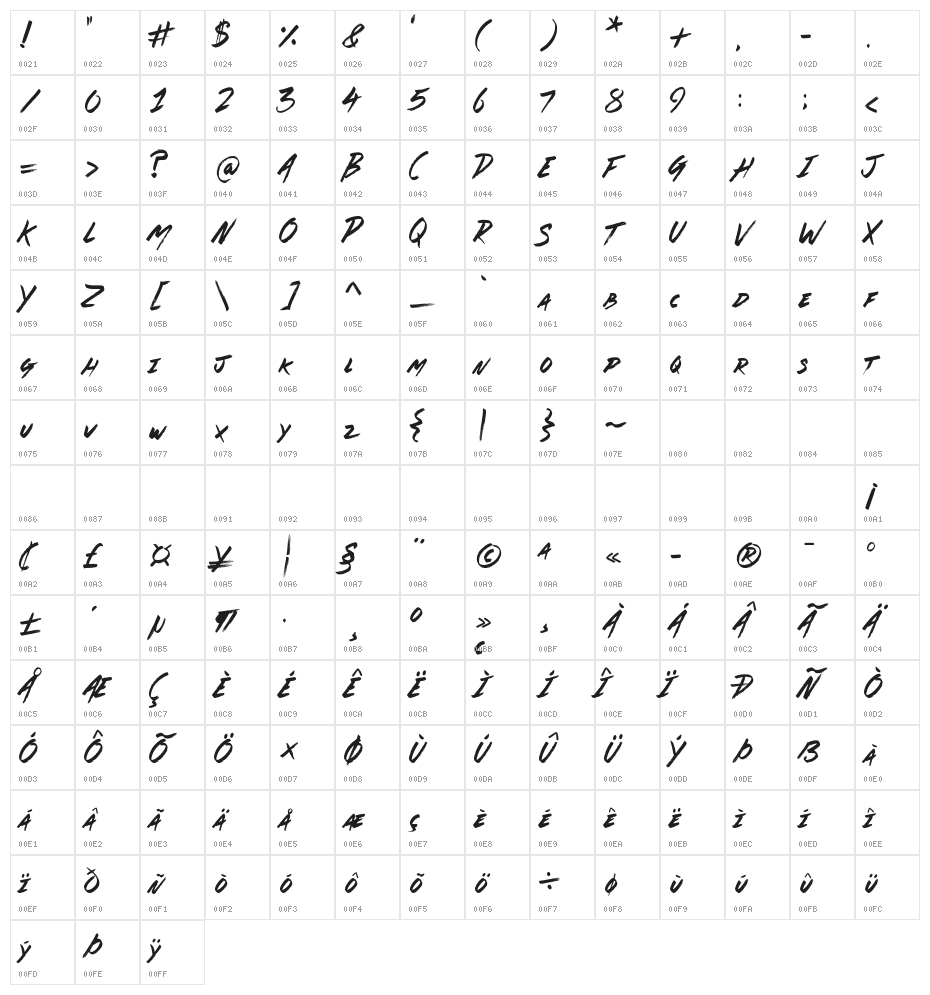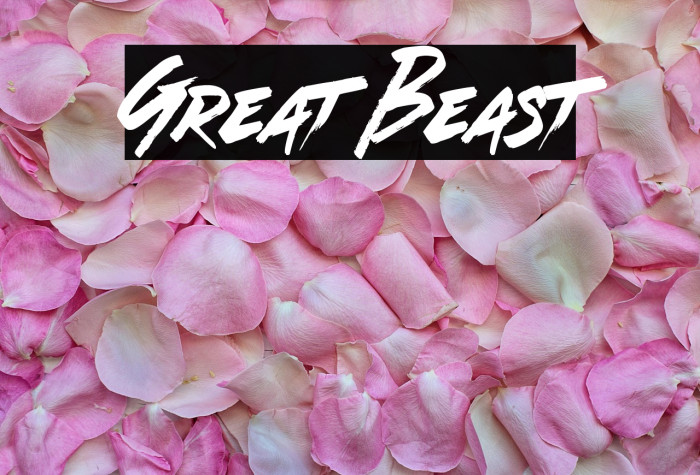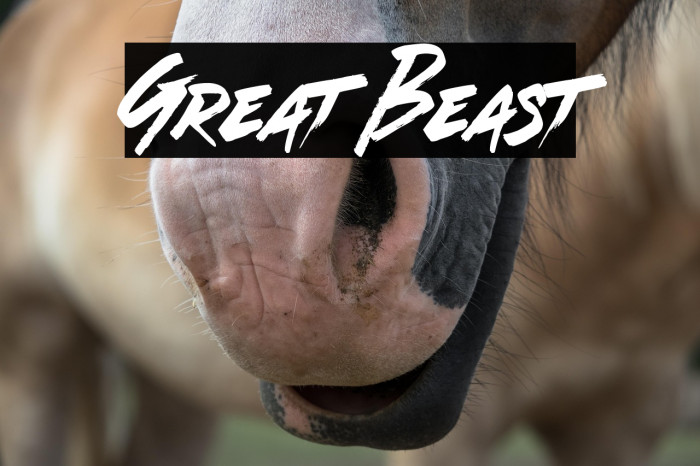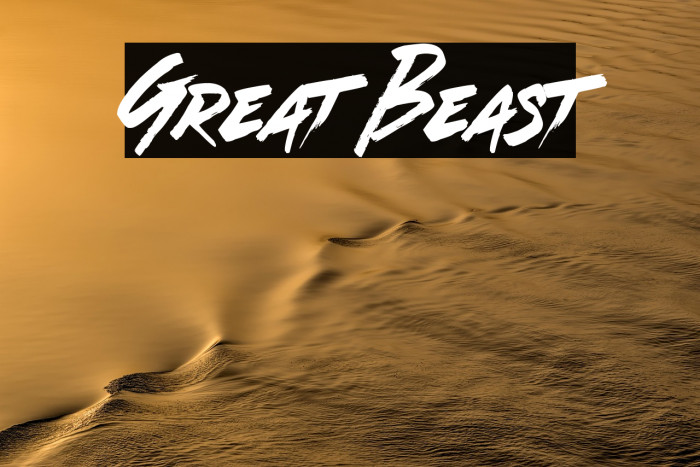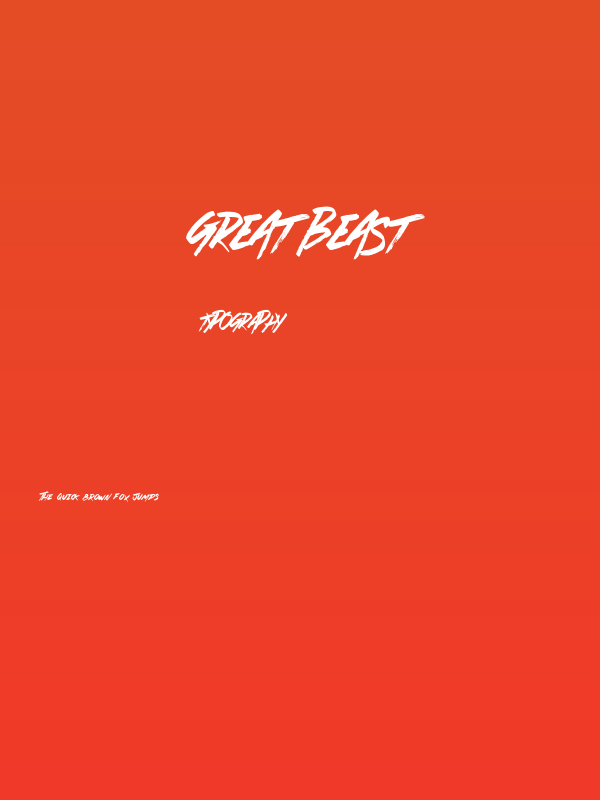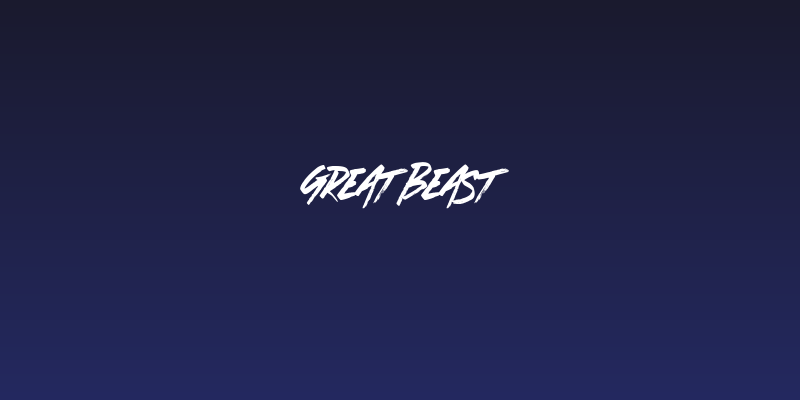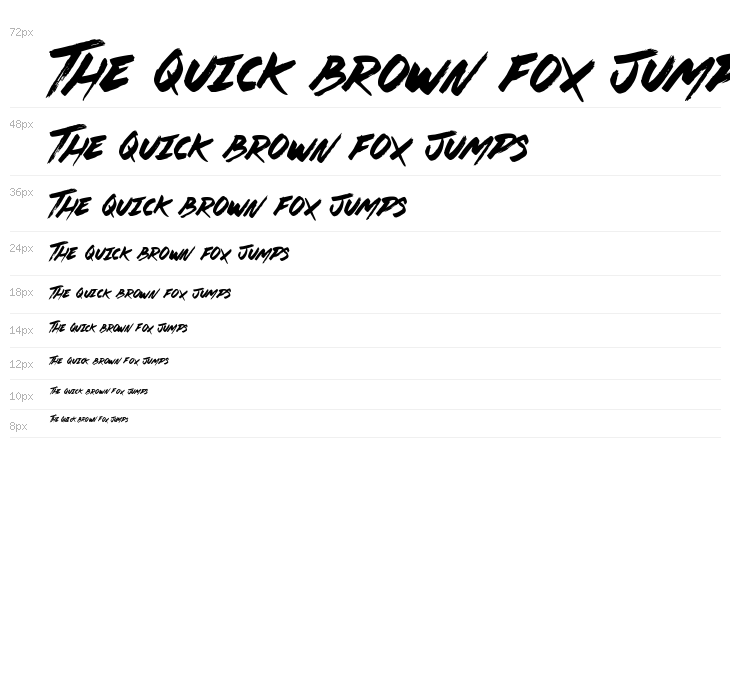
Great Beast Font
Great Beast Description
This font exudes a bold and dynamic energy, characterized by its brush-like strokes that convey a sense of movement and intensity. The letters are crafted with a rough, textured appearance, giving them a hand-painted feel. The uppercase and lowercase letters maintain a consistent style, with sharp angles and varying stroke widths that add to its dramatic flair. Numbers and special characters follow the same expressive design, making the font versatile for various creative applications. Its unique style is perfect for projects that require a strong visual impact.
| Proposed Projects | Ideal for posters, album covers, branding, and any project needing a bold, artistic touch. |